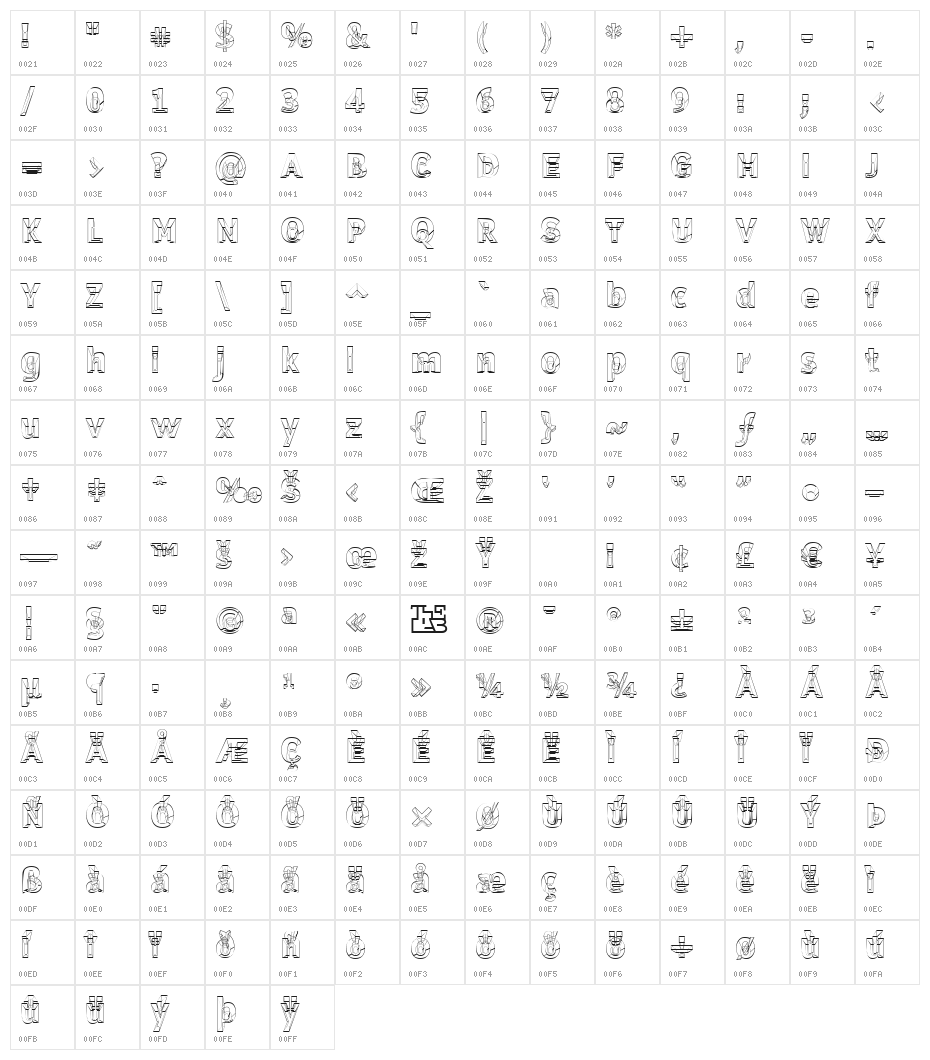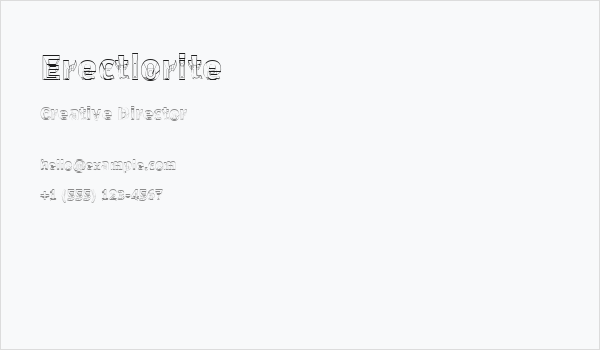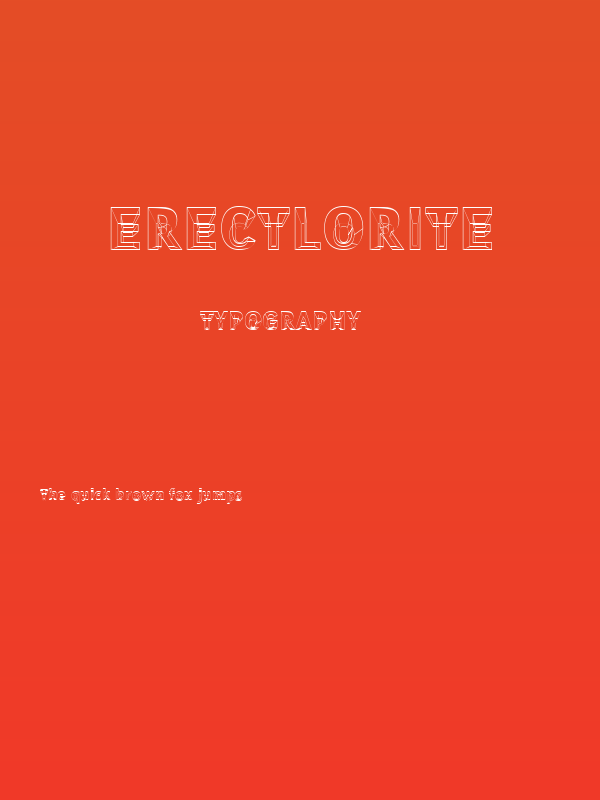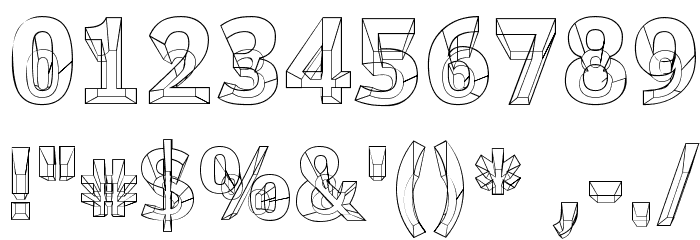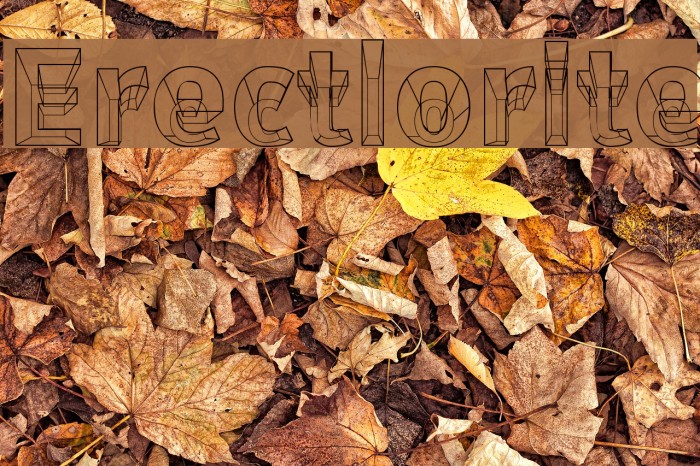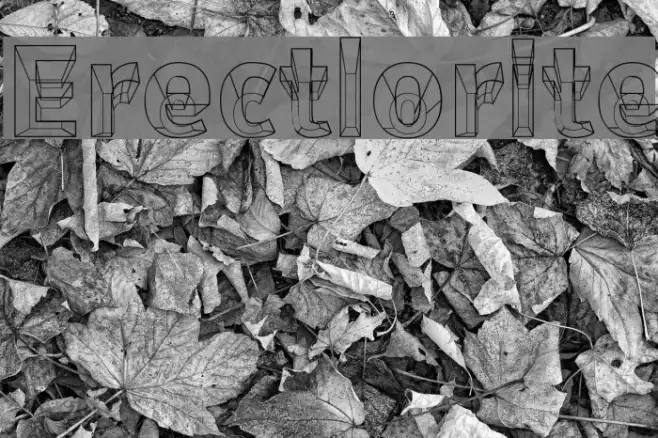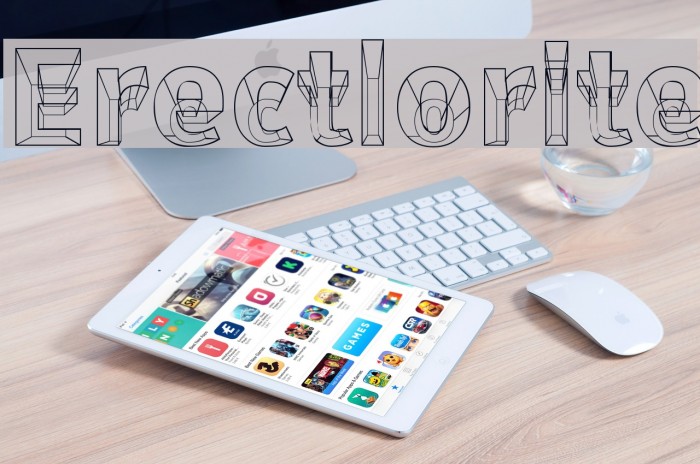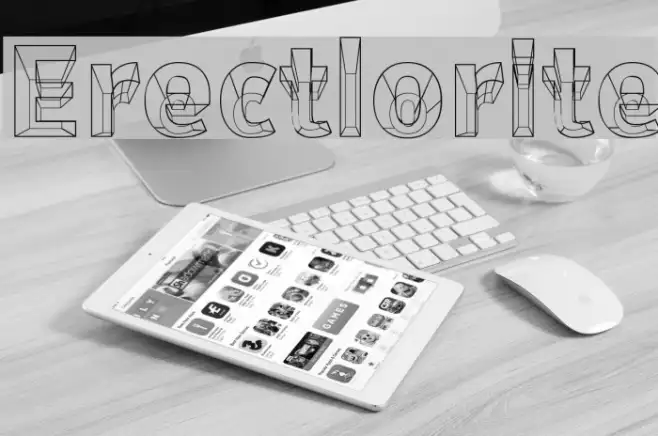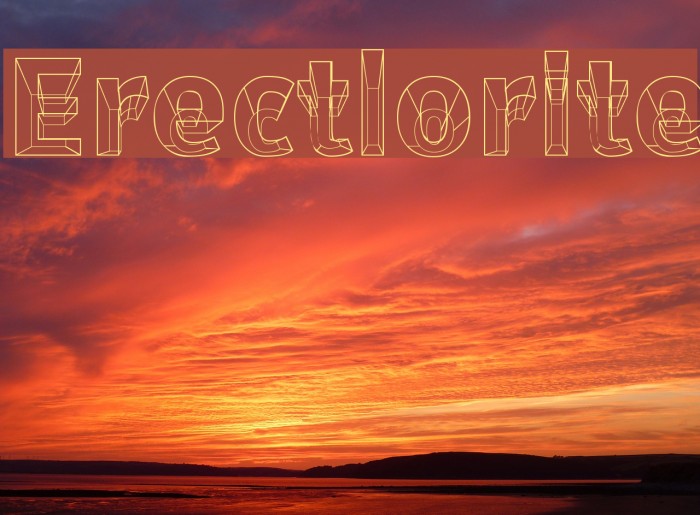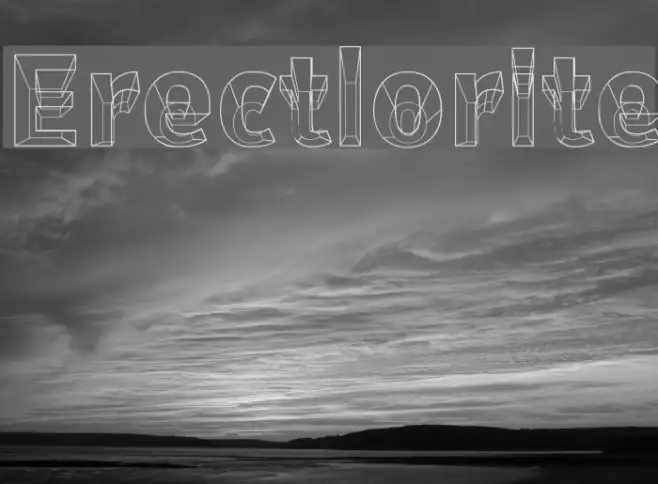
Erectlorite Font
Erectlorite Description
This font features a bold, three-dimensional outline style that gives each character a sense of depth and structure. The uppercase and lowercase letters maintain a consistent geometric form, with sharp angles and clean lines that create a modern and industrial feel. The numerals and special characters follow the same design principles, ensuring a cohesive look across all glyphs. The font's unique outline effect makes it stand out, adding a layer of complexity and visual interest. It's ideal for projects that require a striking and contemporary aesthetic.